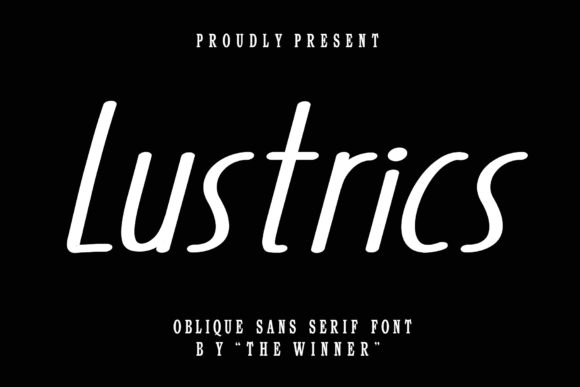
Get ready to be mesmerized by Lustrics, the captivating sans serif font that will leave you spellbound. With its enchanting oblique style, Lustrics is the secret ingredient you've been searching for to ignite your design projects.
Indulge in the world of branding and let Lustrics dance across your creations, giving them a touch of sophistication and allure. Elevate your product packaging to new heights, transforming them into masterpieces that entice customers. Let Lustrics grace your invitations, adding a personal touch that reflects the cherished moments you share with loved ones.
Unleash your inner artist and let Lustrics flow onto your T-shirts, creating wearable statements that express your unique style. Adorn labels with Lustrics, giving your products an air of exclusivity. Transform posters into works of art, captivating your audience with messages that linger in their minds.
Step into the realm of logo design with Lustrics by your side. Witness as it effortlessly transforms simple sketches into iconic symbols that represent your brand with pride. Let Lustrics be the guiding light that illuminates your design journey, taking your creations to extraordinary heights.
With Lustrics, the possibilities are limitless. Dive into a world of endless creativity, where your designs shine brighter than ever before. Experience the magic of Lustrics today!